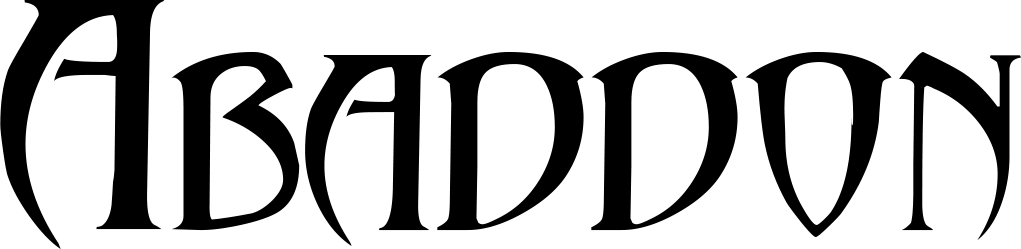
Abaddon Font
Designed byThe Scriptorium
Abaddon is a font that came straight out of a retro club sign! This gothic font has vintage and pointy characters and it will convey an elegant look to your reader.
You can use it for classic movie and book titles, theater and opera posters and flyers, and product packaging. Please keep in mind that this font only has a set of capital letters.